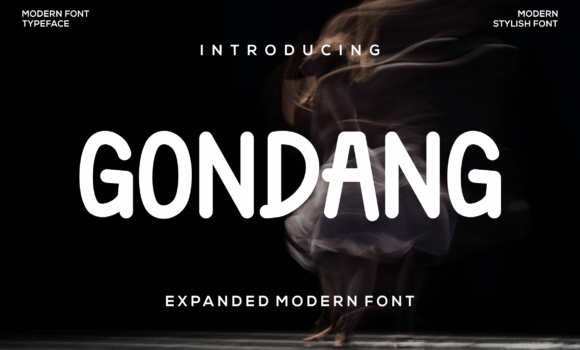
Gondang Font – Free Download Introduction to Gondang Font Presenting our new product **Gondang Font** – Modern Font is a bold and authentic display font. 📸 Preview Gallery 4 images 📌 Product Name Gondang Font